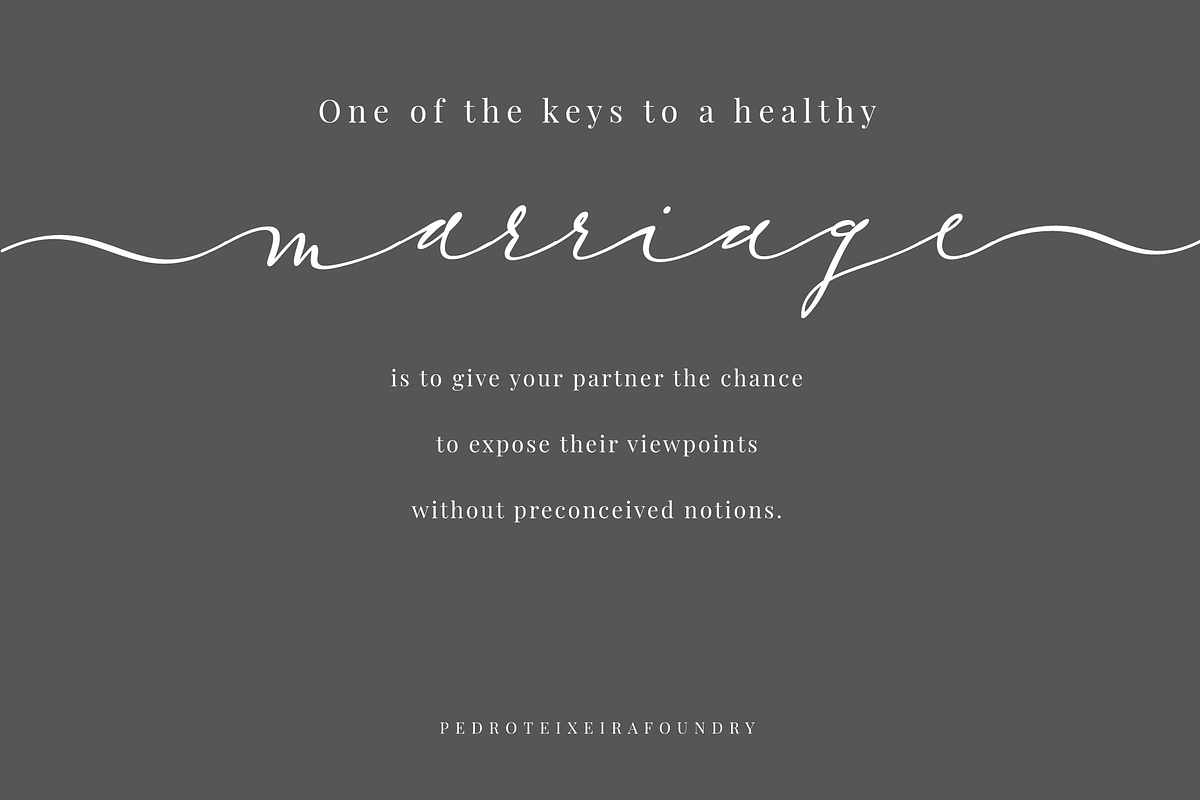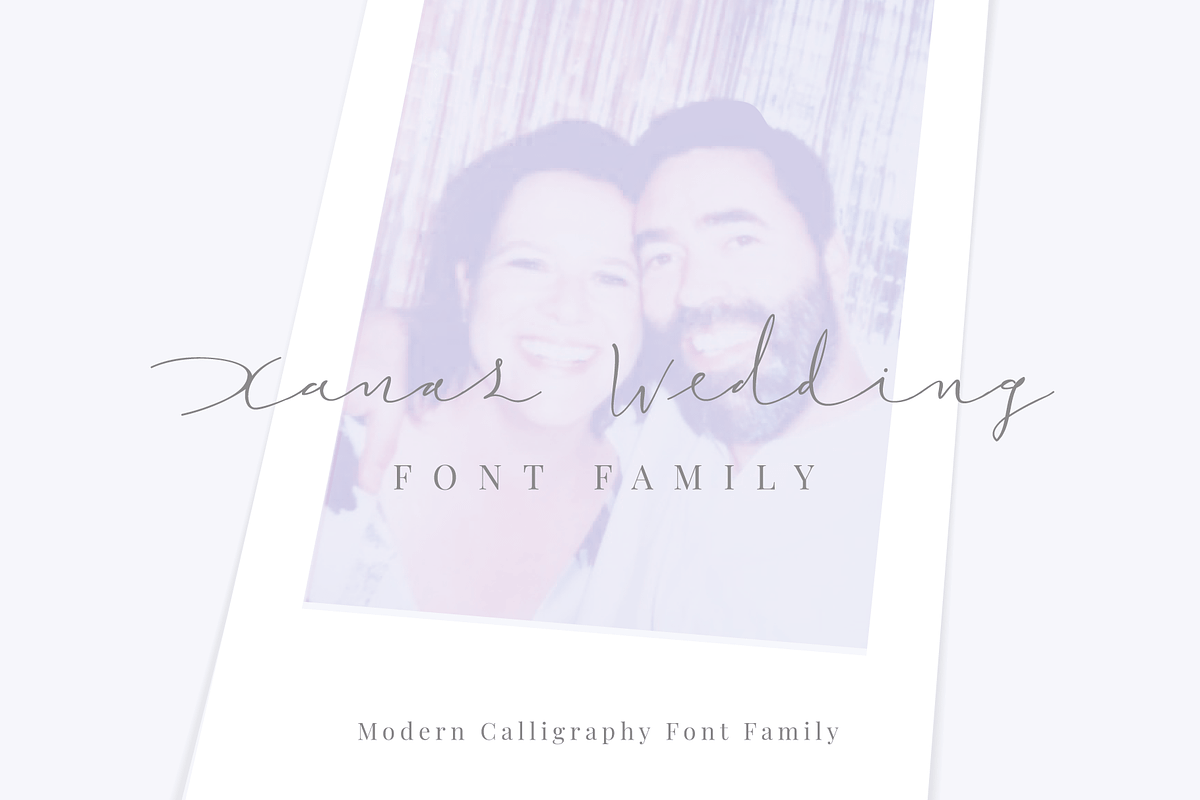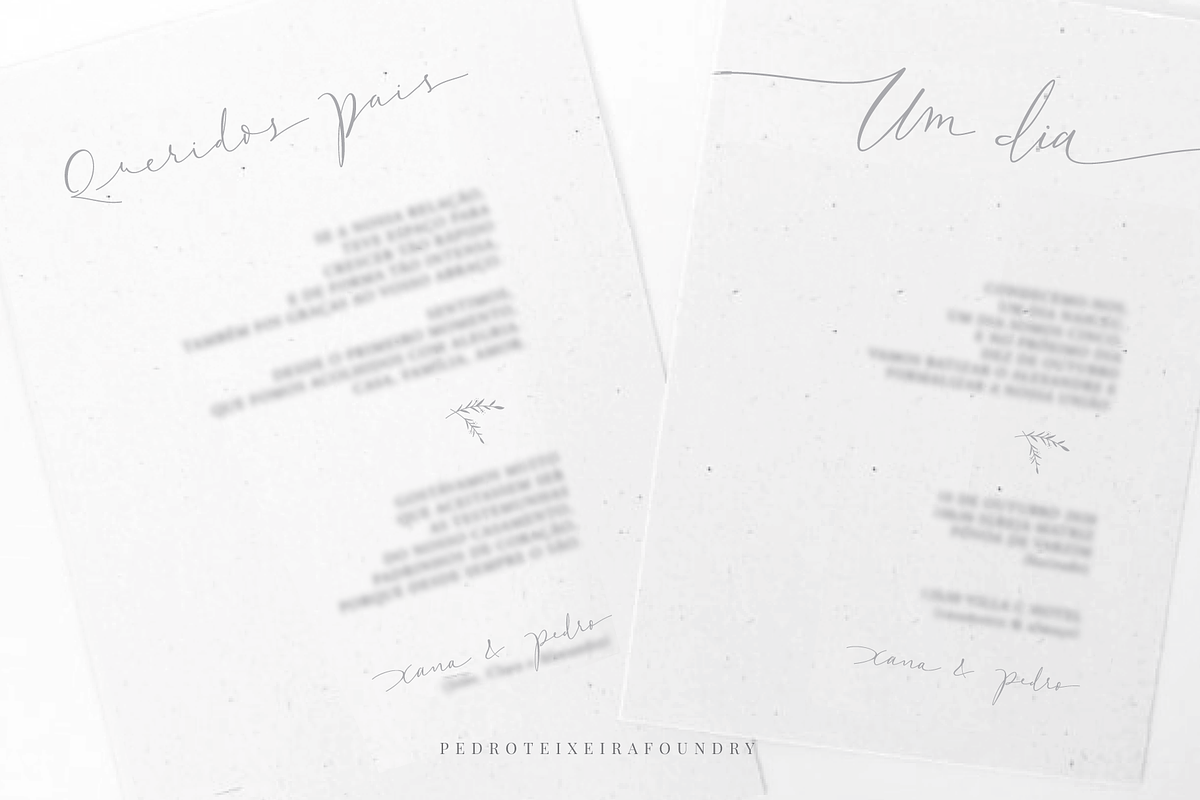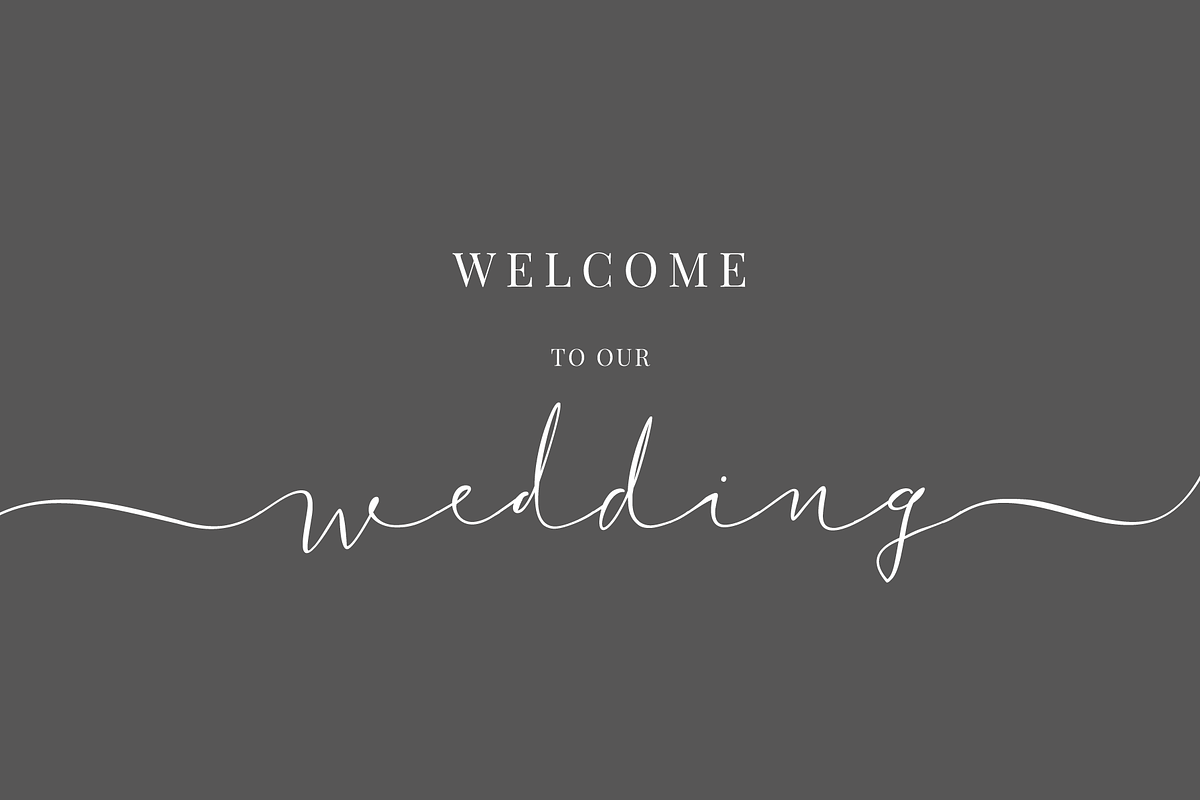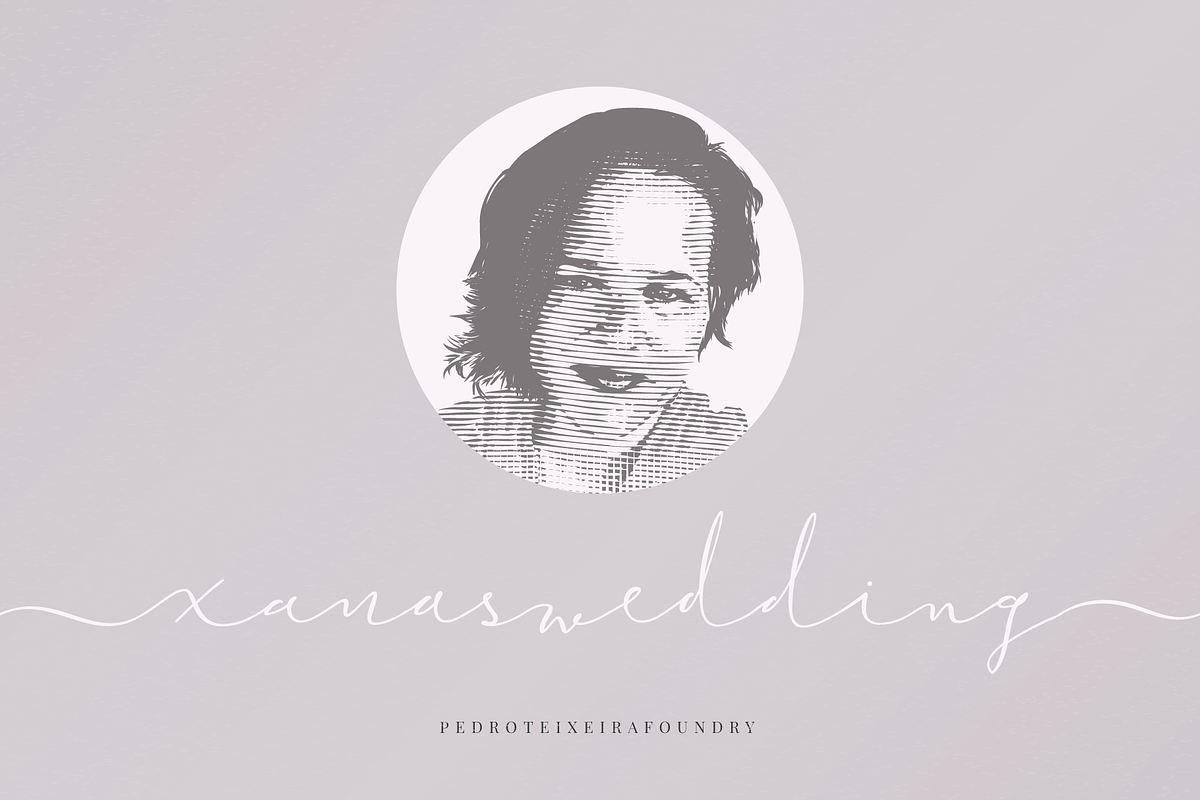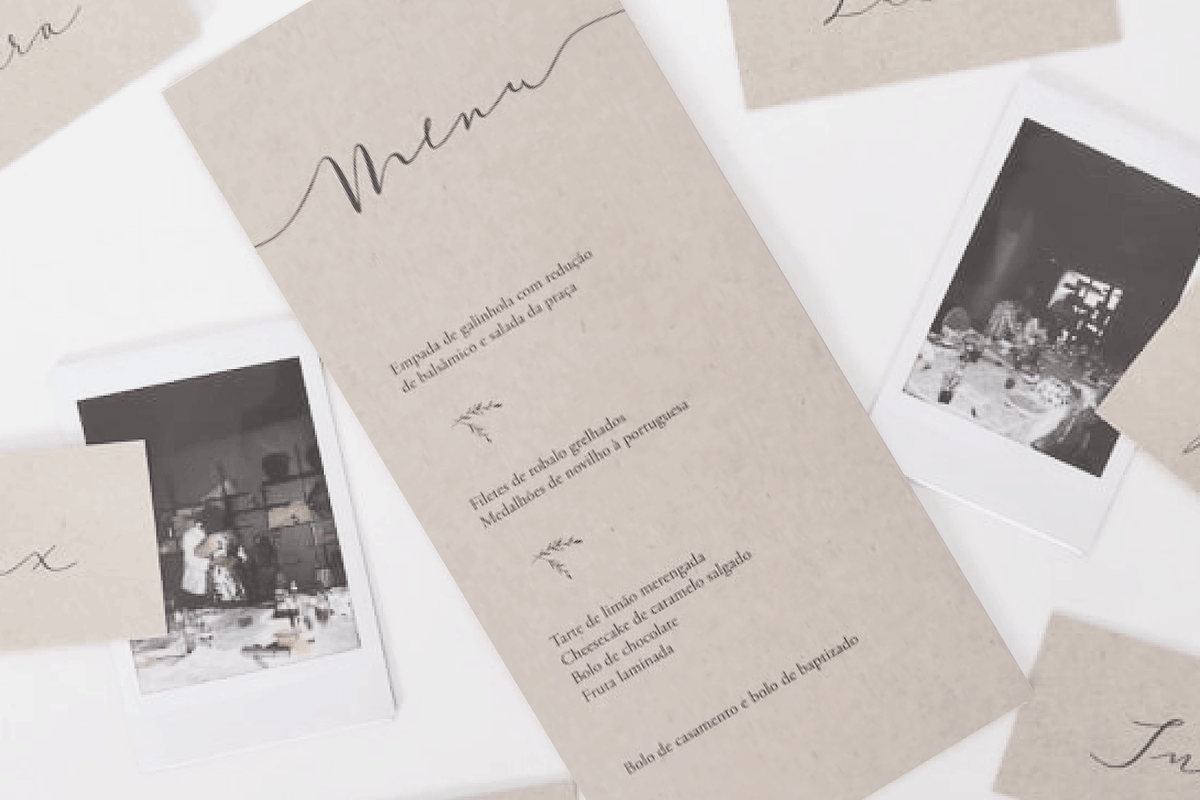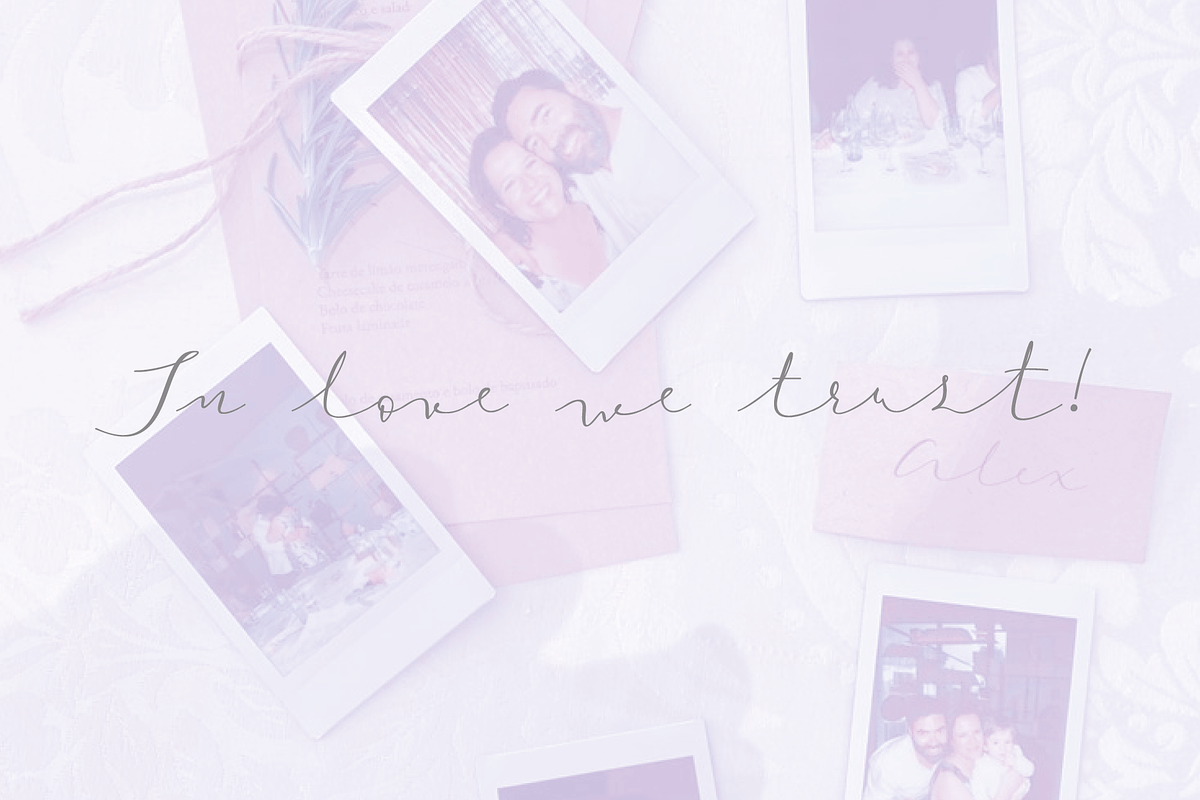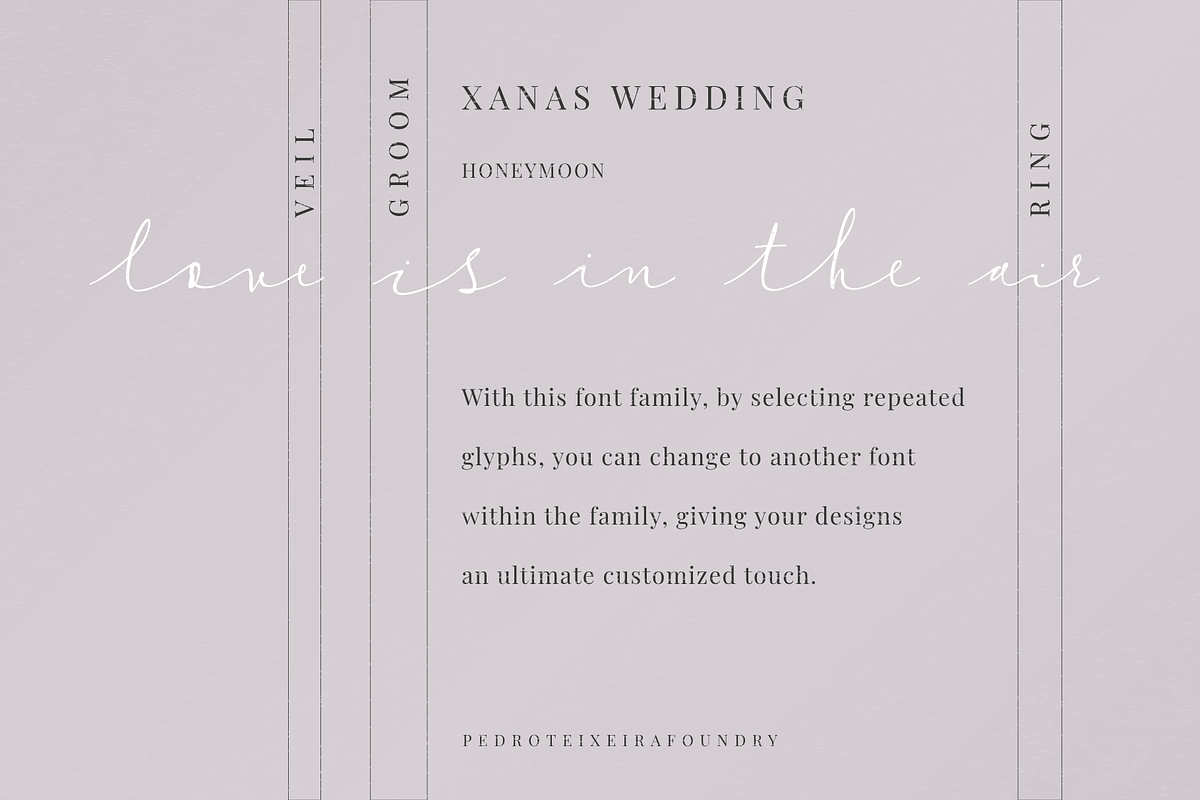
(44 fonts) Xanas Wedding Font Family
Xanas Wedding Font Family
This font family has derived from a lettering creation for my wedding stationery. One of the most significant moments for me and my wife Xana (hence the font name - Xanas Wedding). I hope this typography can give a touch of informal elegance and discreet beauty to your projects. There can be multiple applications, since this font is flexible enough to appear as a custom text or a variable, organic, handwritten work.
Initial and final swashes: you select a letter (like "a" of xanas wedding inicial swash) and then you type the other letters, but with another font (like xanas wedding bride, for example). In the final of the phrase/name, you type "a" or "d" and select this final letter and switch the font for xanas wedding final swash.